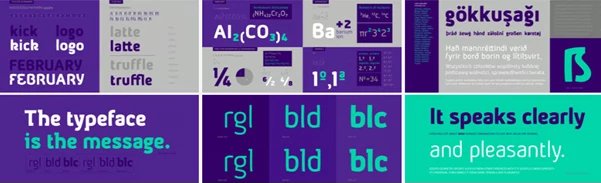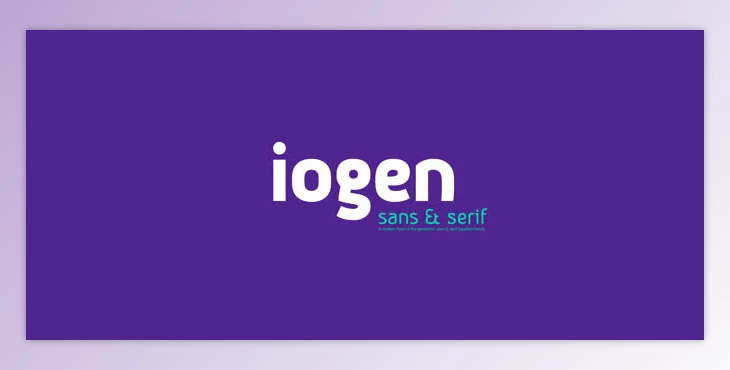
The Iogen typeface is the result of years of tweaking a concept first unveiled back in 2010. The philosophy behind its design is to allow for comprehensive and beautiful communication. The goal of the face relies upon both sharp directional transitions and beautiful vertical curves to present information legibly and attractively. Furthermore, it's meant to be comprehensive, using sharp corners, open apertures, and open counters to maintain easy readability at smaller sizes to boot.
The Iogen family comes in six styles, which include three basic weights and sans and serif options. It also has Latin extended support and OpenType features ranging from stylistic alternates and ligatures to basic numerals as fractions, denominators, numerators, superscripts, subscripts, and ordinals. The character support and variety of options make Iogen appealing for both functionality and visual aesthetics.